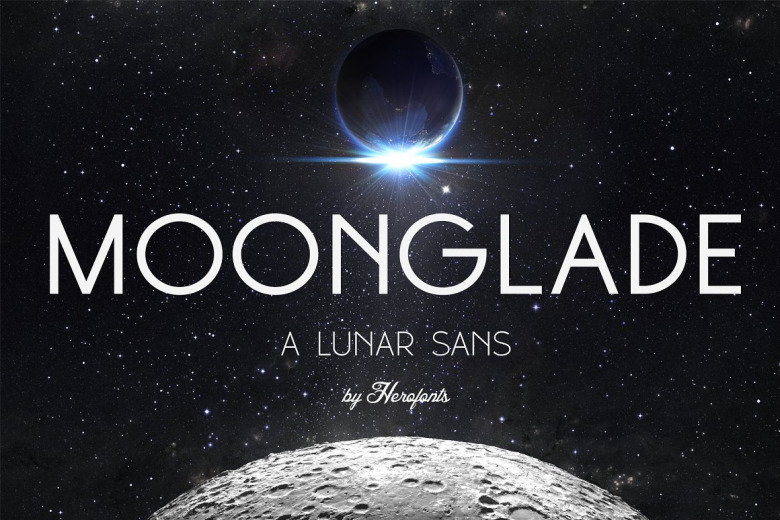
Moonglade Font
Moonglade © is technically a modern all caps geometrical sans serif. But basically, what it can do for you is give a really cool, modern and elegant look to your designs. It comes with 3 styles in 3 weights (9 fonts) + web versions for all of them!
Moonglade Sans Serif Font